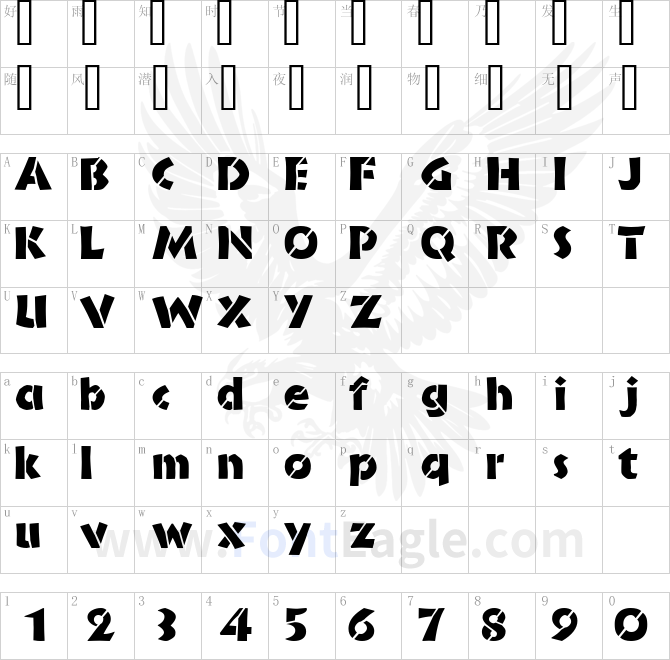
- Font name:Bride StencilAlt
- Font Copyright:Bride [of the Monster] Stencil‐Alt computer font v1.0 ©2002 Harold Lohner • HLohner@aol.com • www.haroldsfonts.com Lowercase letters are designed to work with Rudolf Koch’s classic Neuland font.